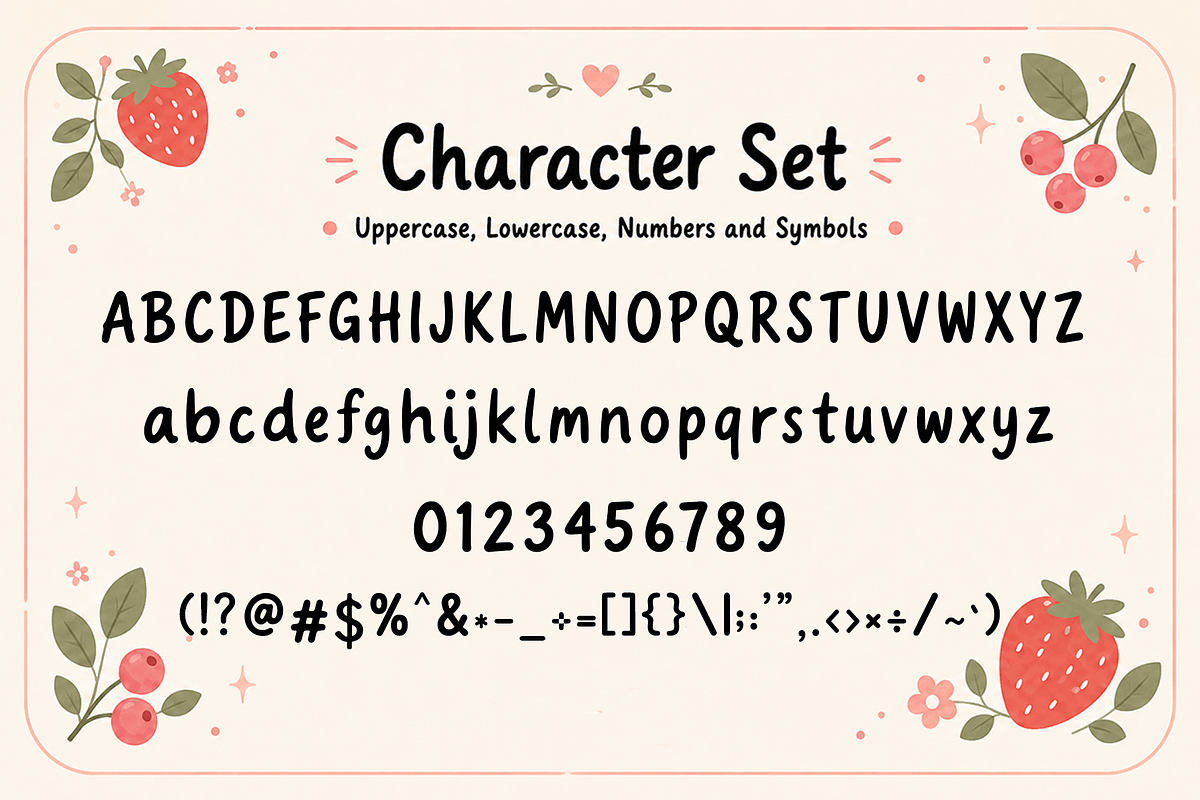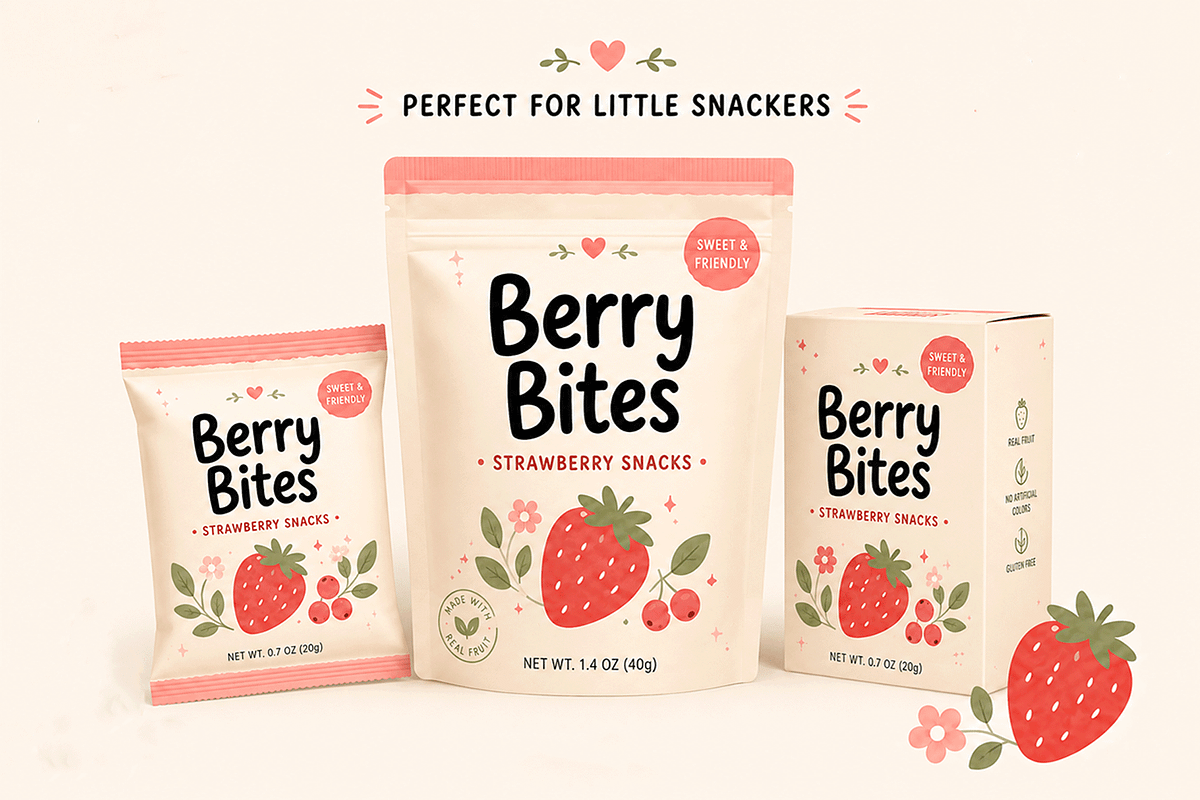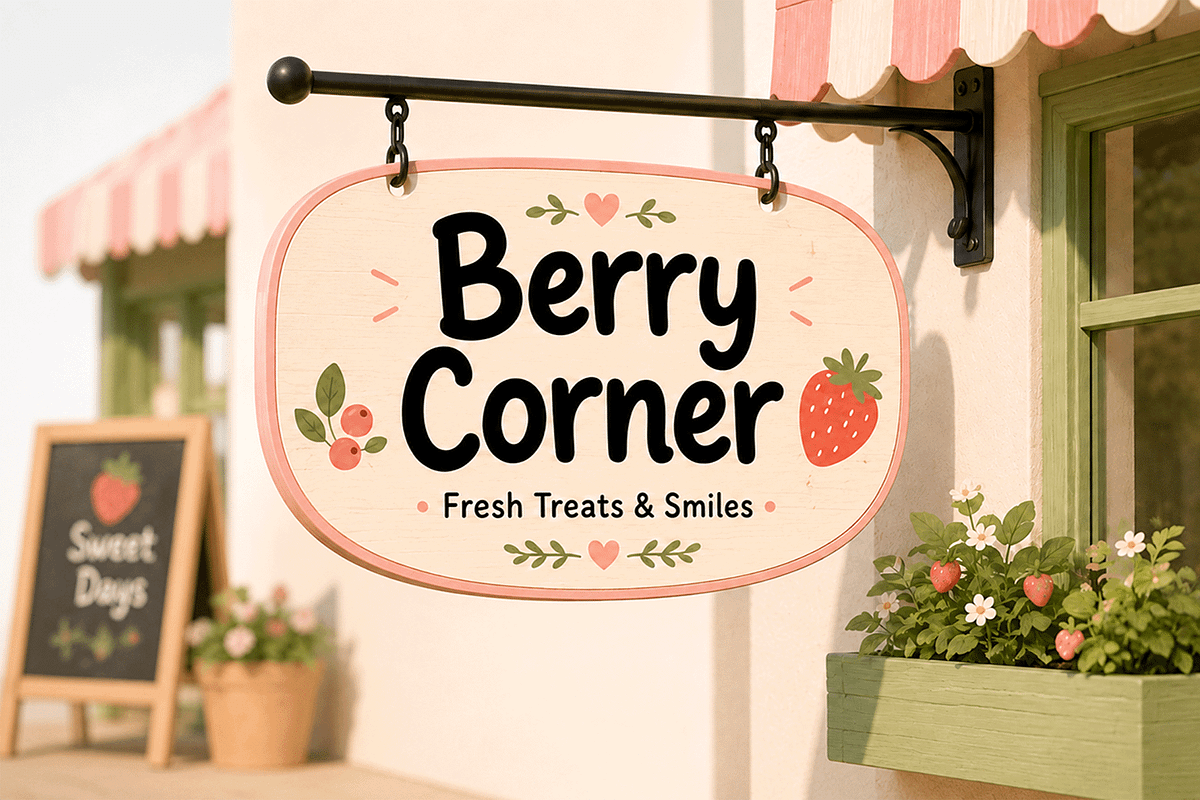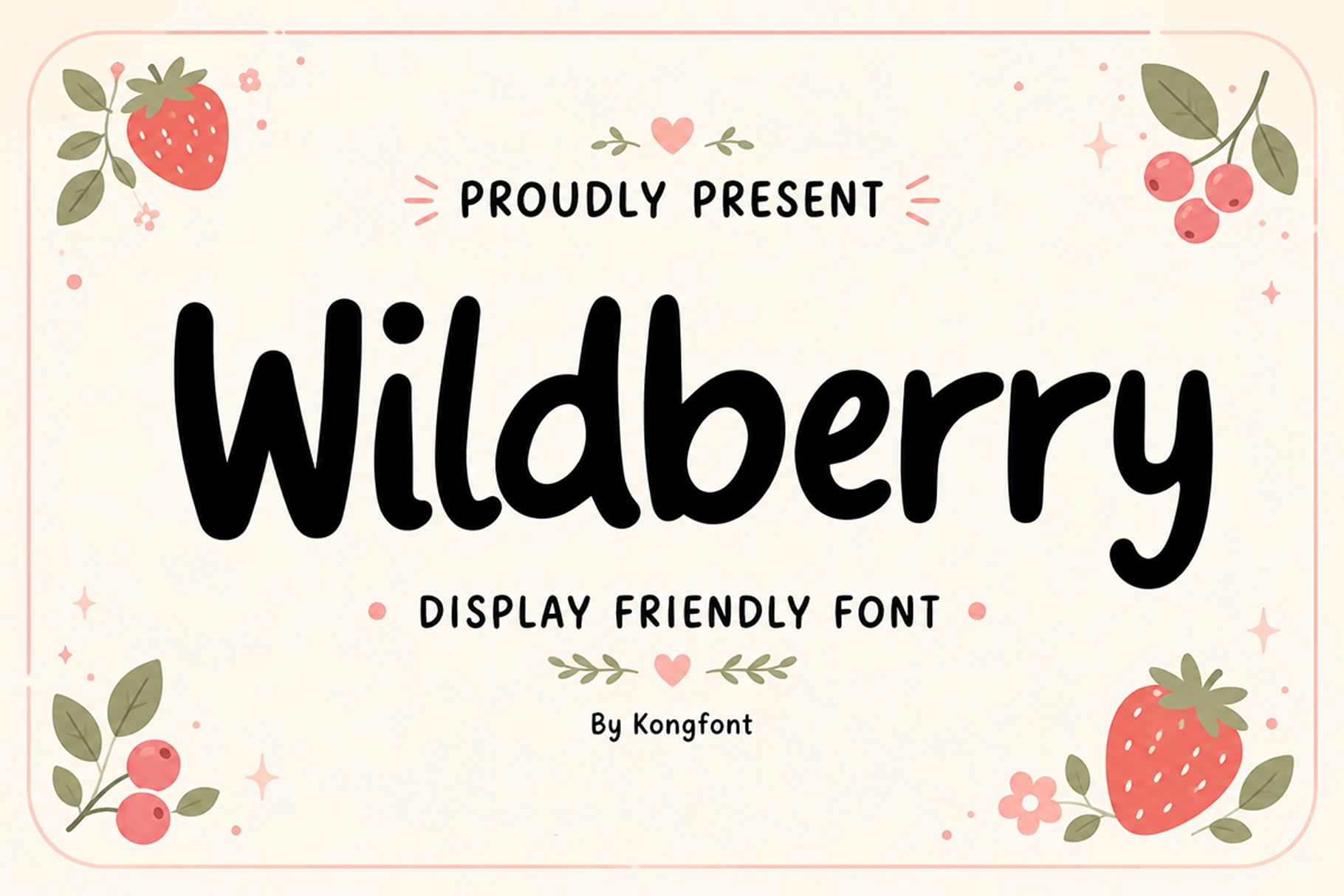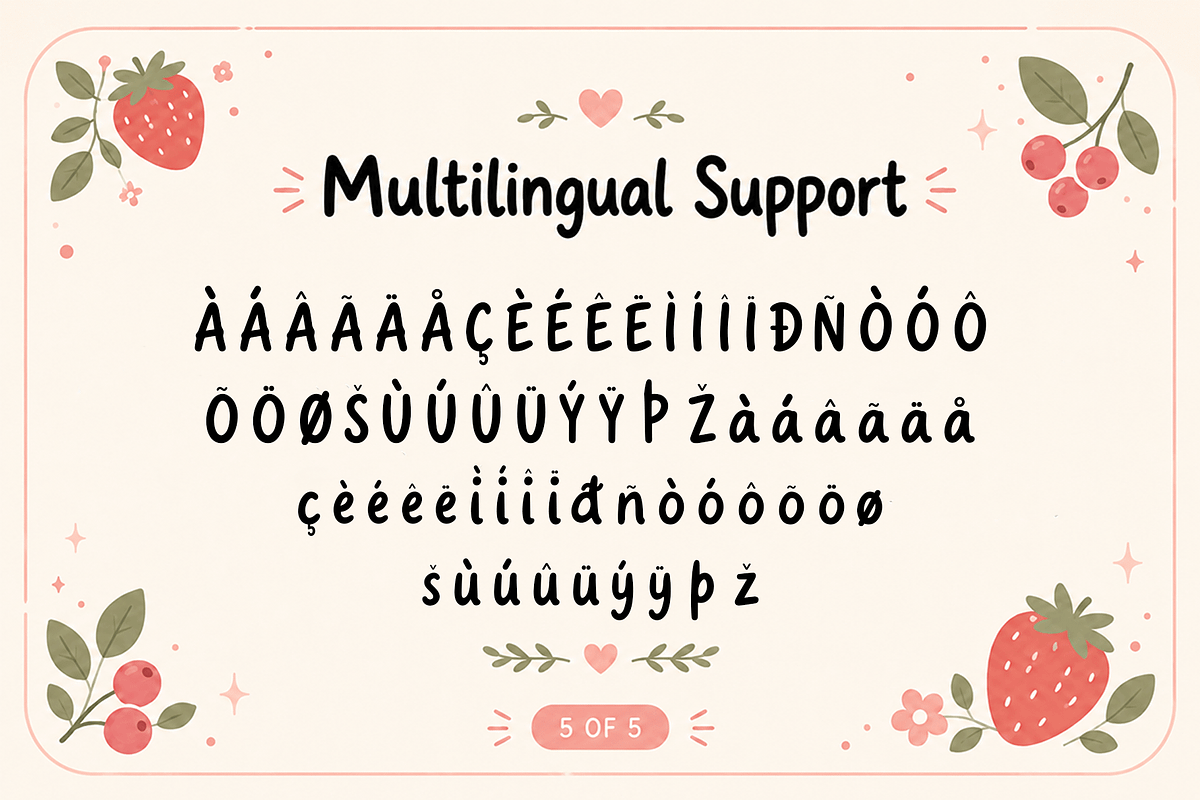
Wildberry - Handwritten Display Font
Wildberry - Friendly Handwritten Display Font
Meet "Wildberry," a friendly handwritten display font designed with soft curves, playful proportions, and a warm handmade personality. Its casual letterforms feel cheerful and approachable, making every word look fresh, personal, and full of charm.
Wildberry works especially well for food and beverage branding, handmade products, bakery packaging, kids’ projects, craft designs, journals, cute merchandise, and family-friendly campaigns. Its expressive handwritten character makes it a versatile choice for projects that need to feel natural, sweet, and welcoming.